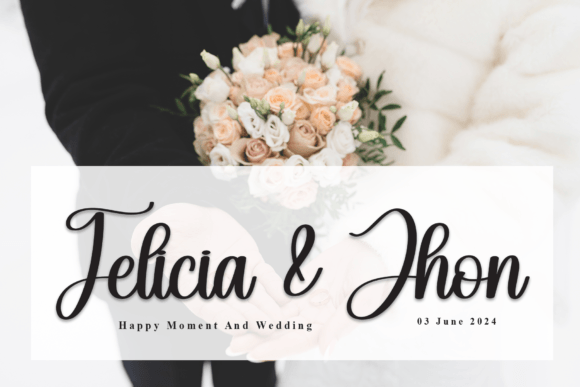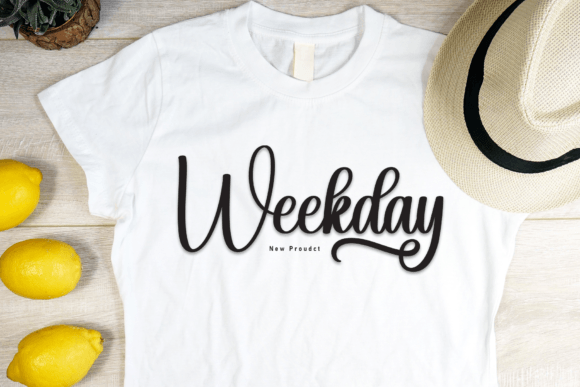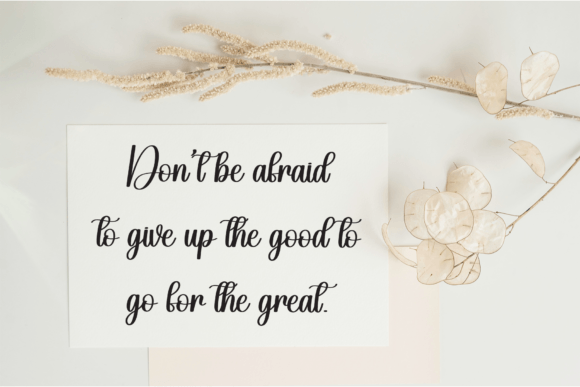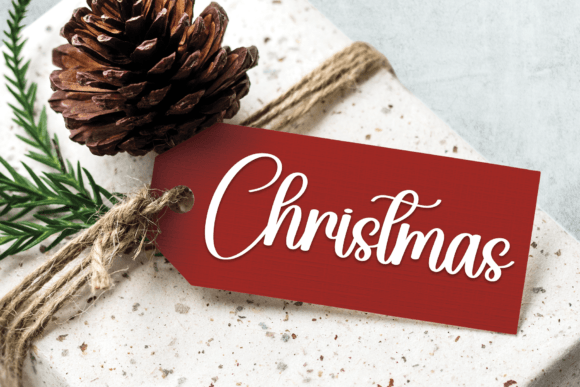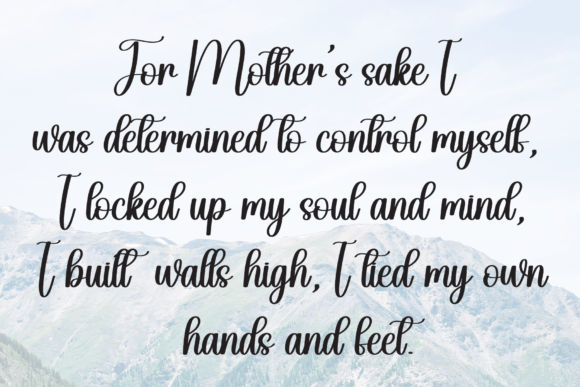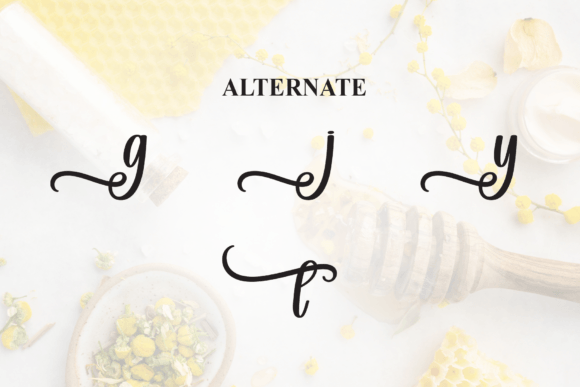
Unlock the Sweet Charm of Beauty Honey Font
Have you ever stumbled upon a font that immediately sparks joy and makes you feel like you’re creating something truly special? For me, that moment happened when I first laid eyes on the Beauty Honey Font. Its playful, hand-crafted design is like a breath of fresh air, instantly elevating any design project with its delightful character.
As a versatile display typeface, Beauty Honey Font is perfect for crafting wedding invitations, personalized cards, or adding a touch of whimsy to any design project. Its effortless charm and lighthearted personality make it an irresistible choice for designers who want to add a pinch of fun to their work. Whether you’re a seasoned pro or just starting out, the Beauty Honey Font is a valuable addition to your design toolkit.
Key Features of Beauty Honey Font
- Font Family: Beauty Honey Font comes in 6 unique styles, including Regular, Bold, Italic, Bold Italic, Outline, and Shadow.
- Unique Characteristics: Beauty Honey Font features a unique blend of modern and elegant design elements, with intricate details and subtle flourishes.
Beauty Honey Font Review
I recently had the chance to work with the “Beauty Honey Font” and I must say it’s an interesting choice. ✨ The font has a warm and inviting feel to it, perfect for beauty-related branding or packaging. The elegant script style makes it a great option for creating a sense of luxury and sophistication.
- ✨ Unique and distinctive style that sets it apart from other fonts
- ✨ Great for creating a sense of warmth and approachability
- ✨ Suitable for a wide range of beauty-related applications
- ⚠️ Limited character set and punctuation options
- ⚠️ May not be suitable for body text or large blocks of text
- ⚠️ May require additional formatting to achieve the desired look
Overall, I think the “Beauty Honey Font” is a solid choice for specific applications, but it’s not a one-size-fits-all solution. With some careful planning and formatting, it can be a beautiful addition to your design projects.
Tips for Getting the Most Out of Beauty Honey Font
Beauty Honey Font is a elegant and sophisticated font, perfect for creating beautiful typography. To get the most out of it, consider the following tips:
- Use it in combination with other elegant fonts for a cohesive look.
- Pair it with a clean and simple background to let the font shine.
Great Vibes Font is a modern calligraphy font that is ideal for creative projects, such as wedding invitations, quotes, and social media graphics. It has a similar elegant and cursive feel to Beauty Honey Font, but with a more playful and relaxed vibe.
Comparison to Beauty Honey Font: While both fonts have a similar elegant feel, Great Vibes Font is more casual and relaxed, making it perfect for everyday use. Beauty Honey Font is more formal and sophisticated, making it better suited for high-end projects.
Alex Brush Font is a beautiful, handwritten font that is perfect for creative projects, such as typography posters, quotes, and branding materials. It has a similar elegant and cursive feel to Beauty Honey Font, but with a more rustic and vintage vibe.
Comparison to Beauty Honey Font: While both fonts have a similar elegant feel, Alex Brush Font is more rustic and vintage, making it perfect for projects that require a touch of nostalgia. Beauty Honey Font is more modern and sophisticated, making it better suited for high-end projects.
Pacifico Font is a beautiful, modern script font that is perfect for creative projects, such as branding materials, social media graphics, and website headers. It has a similar elegant and cursive feel to Beauty Honey Font, but with a more relaxed and casual vibe.